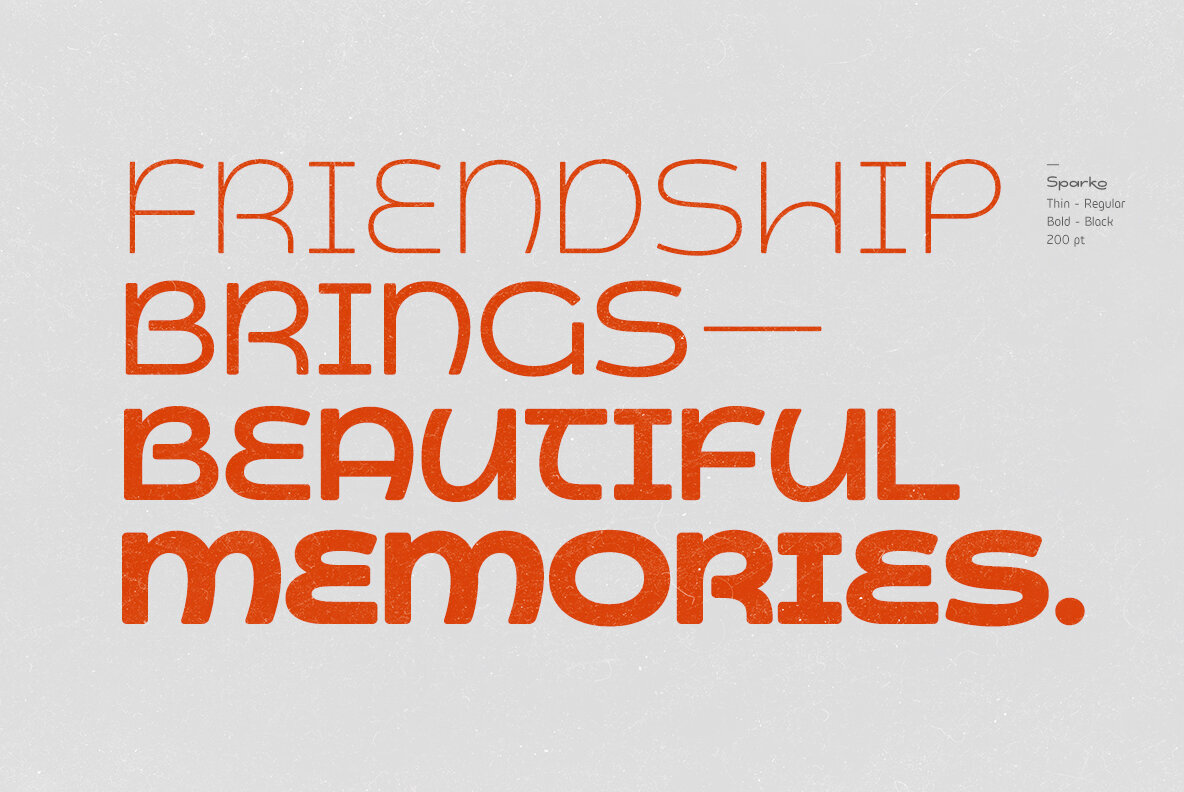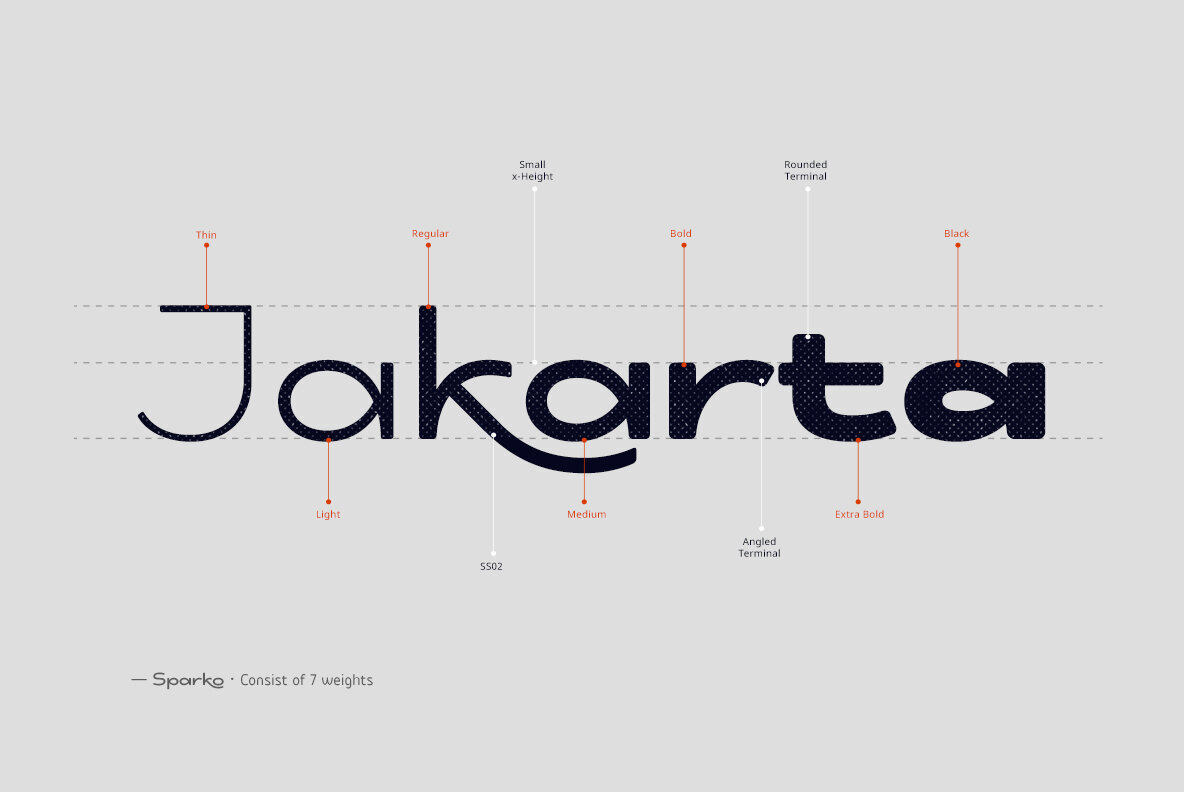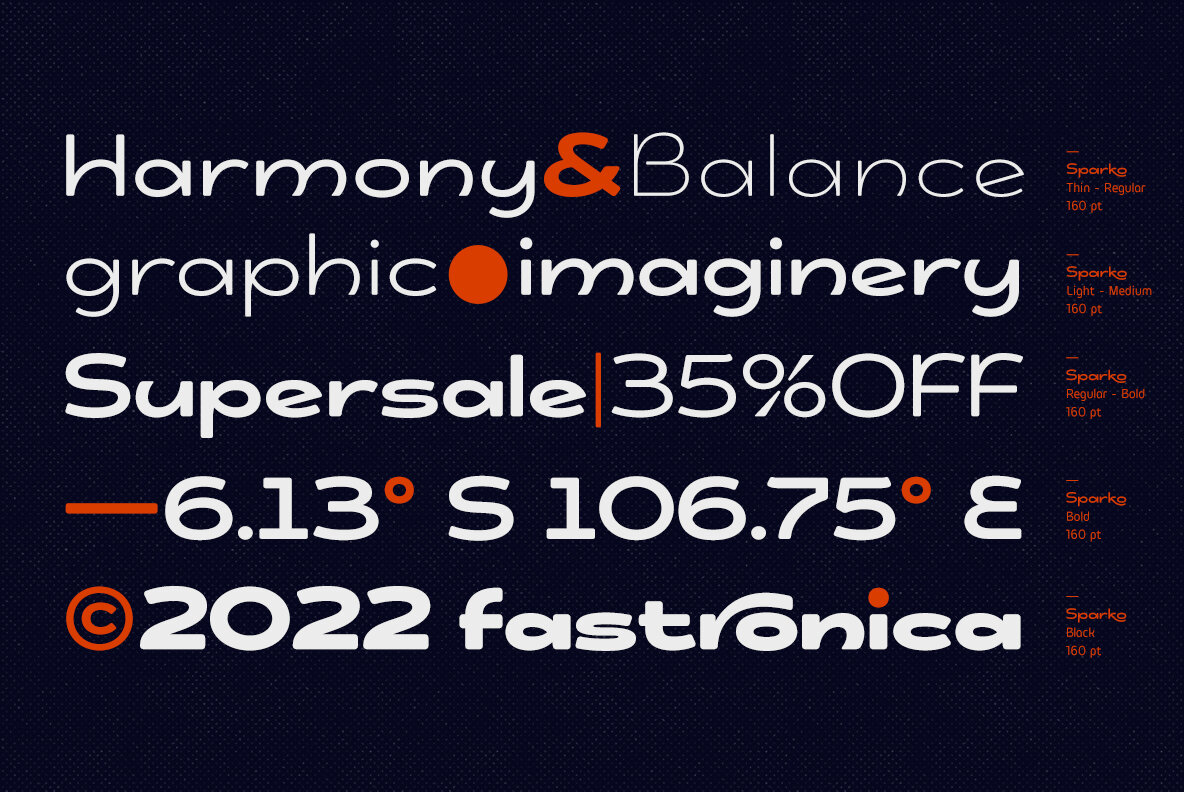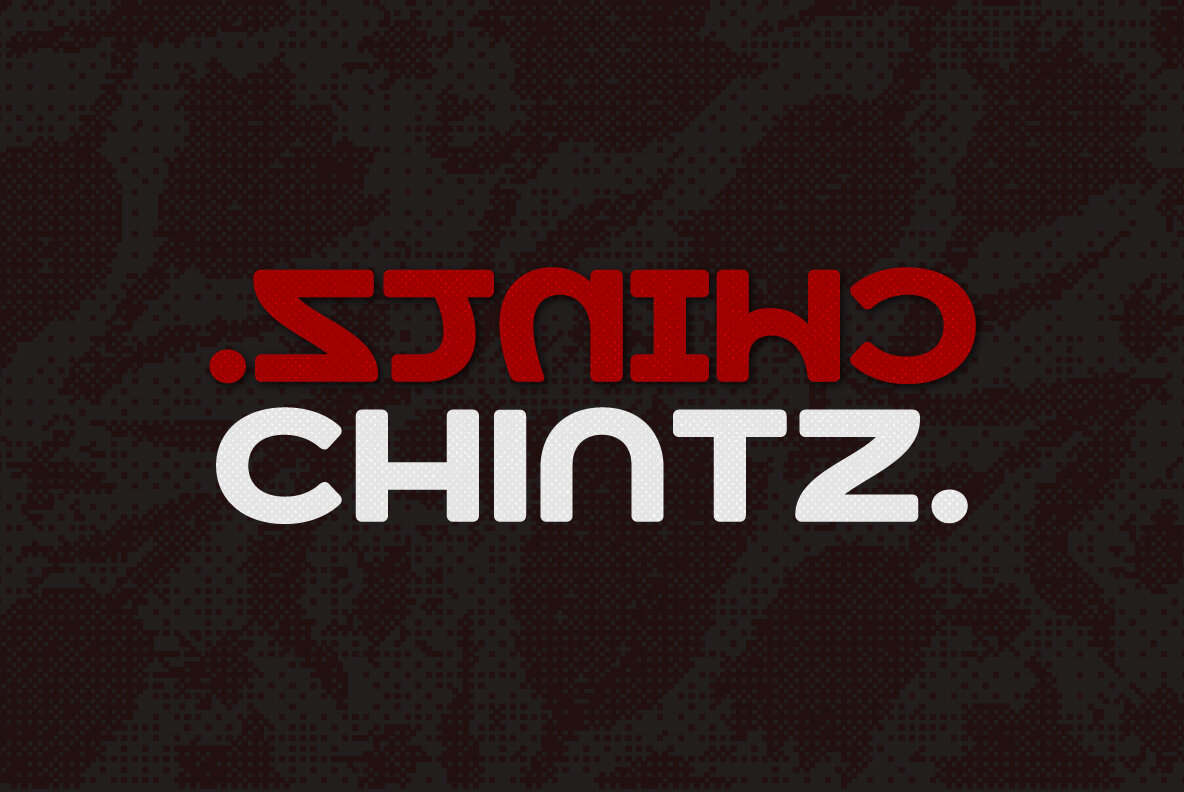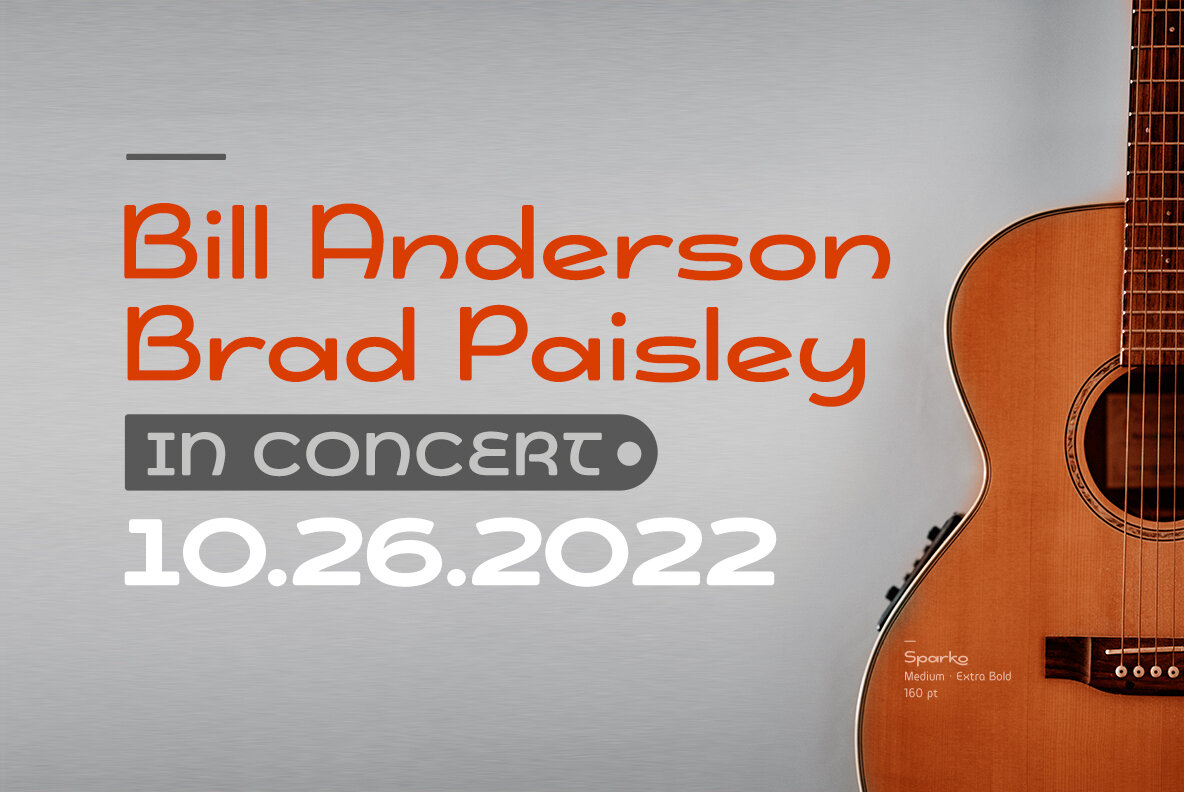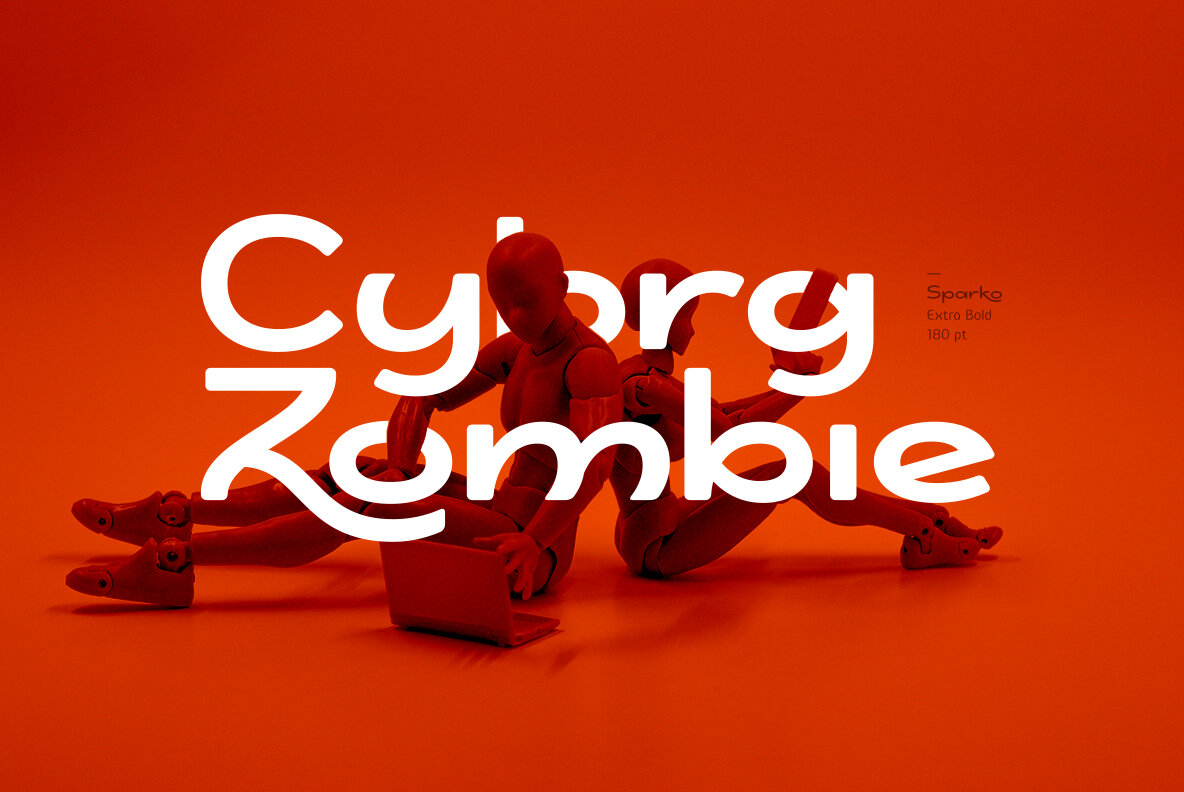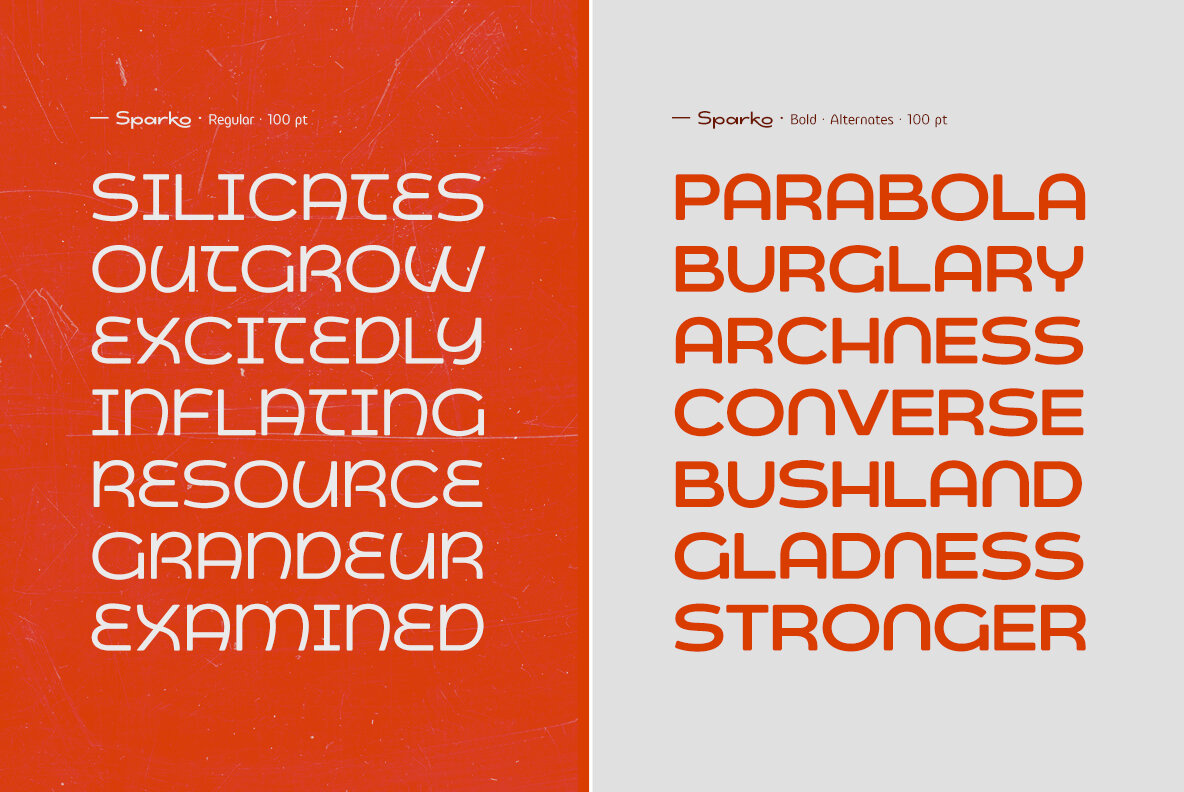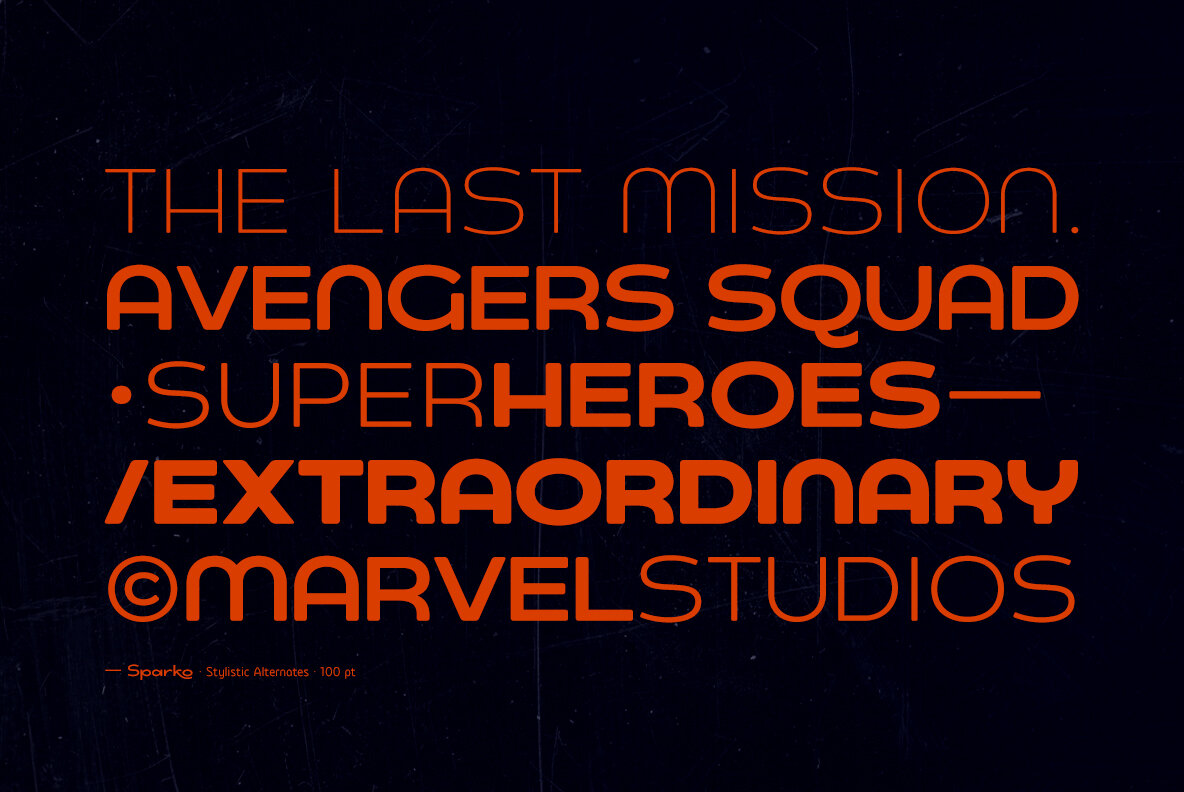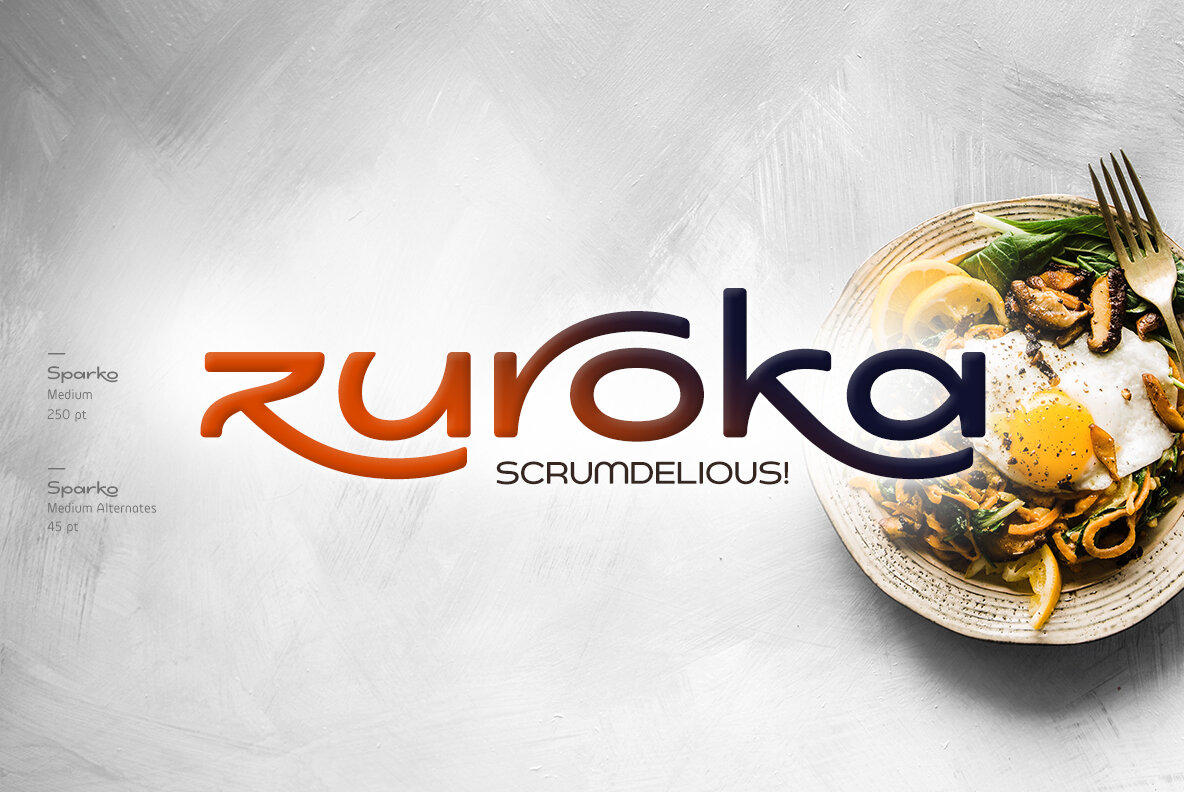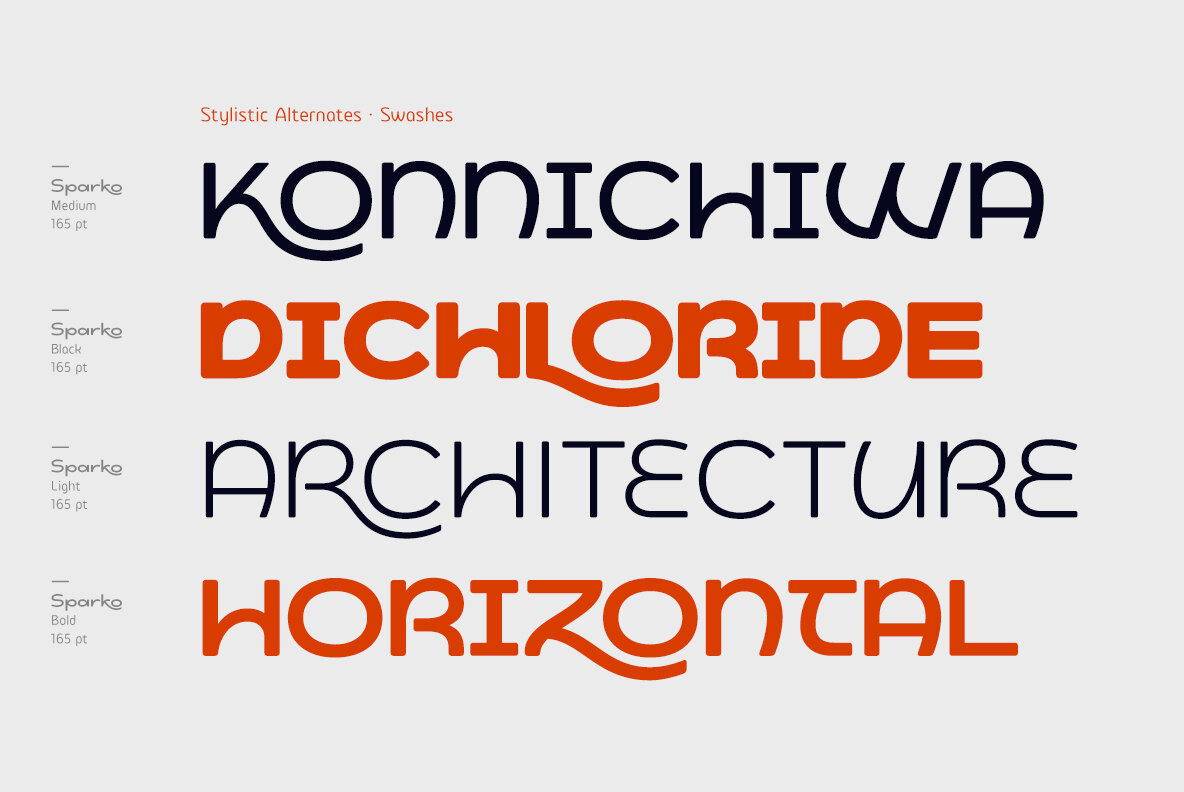
Sparko Font
Sparko captures attention with its display sans serif style, marrying distinctive geometric elements with contemporary flair. Its lowercase features a small x-height and elongated ascenders, lending an elegant touch to both titles and succinct text. Capital letters maintain a nod to classic typography, reimagined for modern sensibilities, while offering alternative caps for versatility. Sparko excels in various applications, including headlines, posters, movie titles, and logos, as well as packaging designs, aesthetic typography, and personal quotes.Sparko: Distinctive Geometric Sans Serif